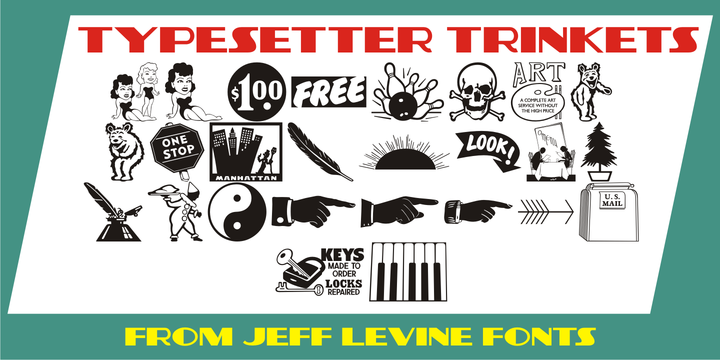
Typesetter Trinkets JNL
by Jeff Levine
Typesetter Trinkets JNL adds more classic typographic gems to the Jeff Levine Fonts library. Re-drawn from vintage source material, the font has numerous cartoons, pointing hands, embellishments and stock printer’s cuts for a myriad of uses.